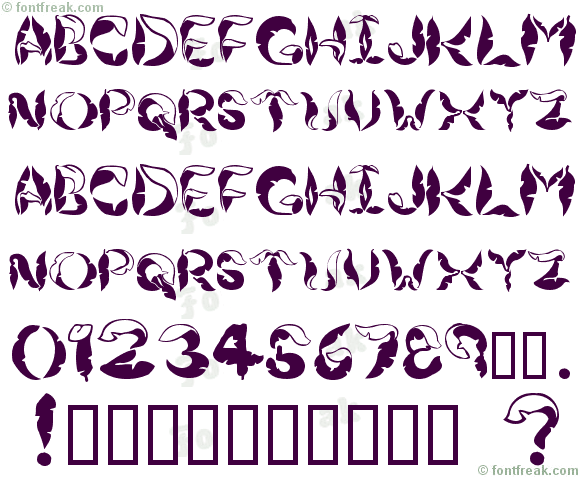
JungleLeaves
Discover the enchanting "Jungle Leaves" font by Fish Dicks Original Fonts, a captivating display typeface that brings the essence of the wilderness to your design projects. This decorative font features playful, organic shapes that mimic the lush foliage of a tropical paradise, making it ideal for any creative endeavor that aims to evoke a sense of adventure and nature. With its medium stroke weight and minimal contrast, the letters flow smoothly, creating a cohesive look that is both inviting and distinctive.
The Jungle Leaves font showcases unique decorative elements that resemble intertwining vines and leaves, giving it a vibrant and lively appearance. The spacing between characters is thoughtfully designed, ensuring clarity while maintaining the font's whimsical character. This makes it an excellent choice for projects that require a touch of originality and flair.
Best suited for wedding invitations, tropical-themed party flyers, eco-friendly product packaging, and restaurant menus with a natural twist, the Jungle Leaves font can elevate your branding and communication materials. Graphic designers and small business owners will find this font particularly useful when they want to capture the attention of their audience with a fresh and engaging aesthetic. Content creators looking to add a unique touch to their blogs or social media graphics will also appreciate its versatility.
What sets the Jungle Leaves font apart is its ability to transport viewers to a vibrant jungle landscape, making any design feel alive and full of energy. With its freeware license, you can enjoy the Jungle Leaves font free download and infuse your projects with the playful spirit of nature, ensuring your work stands out in a crowded digital space. Embrace the wild side of design with this captivating typeface, and let your creativity flourish.